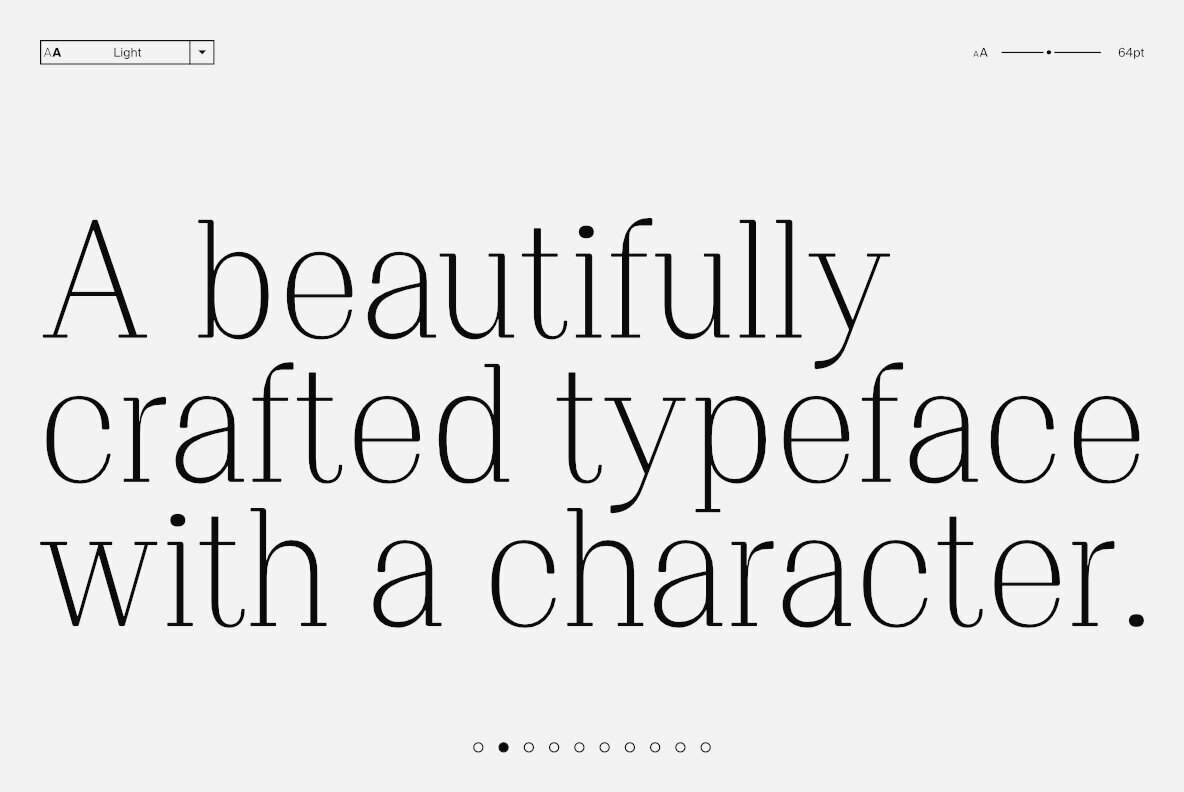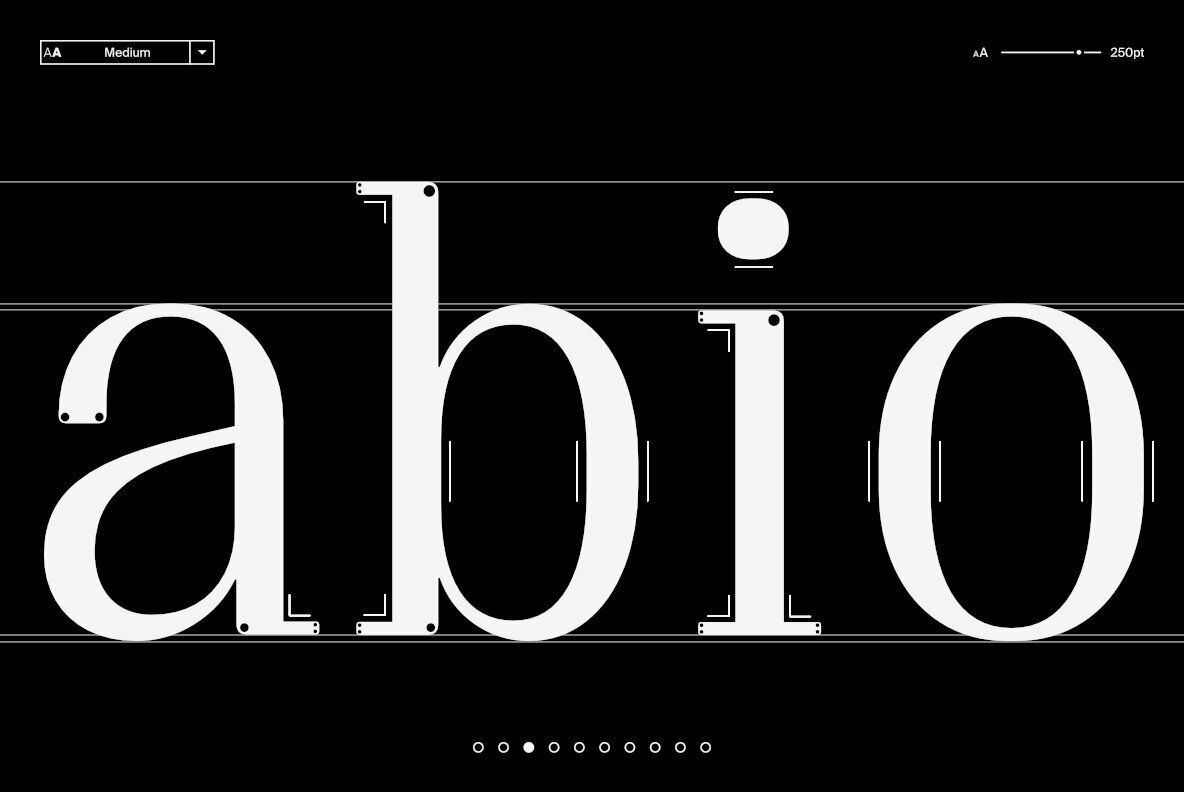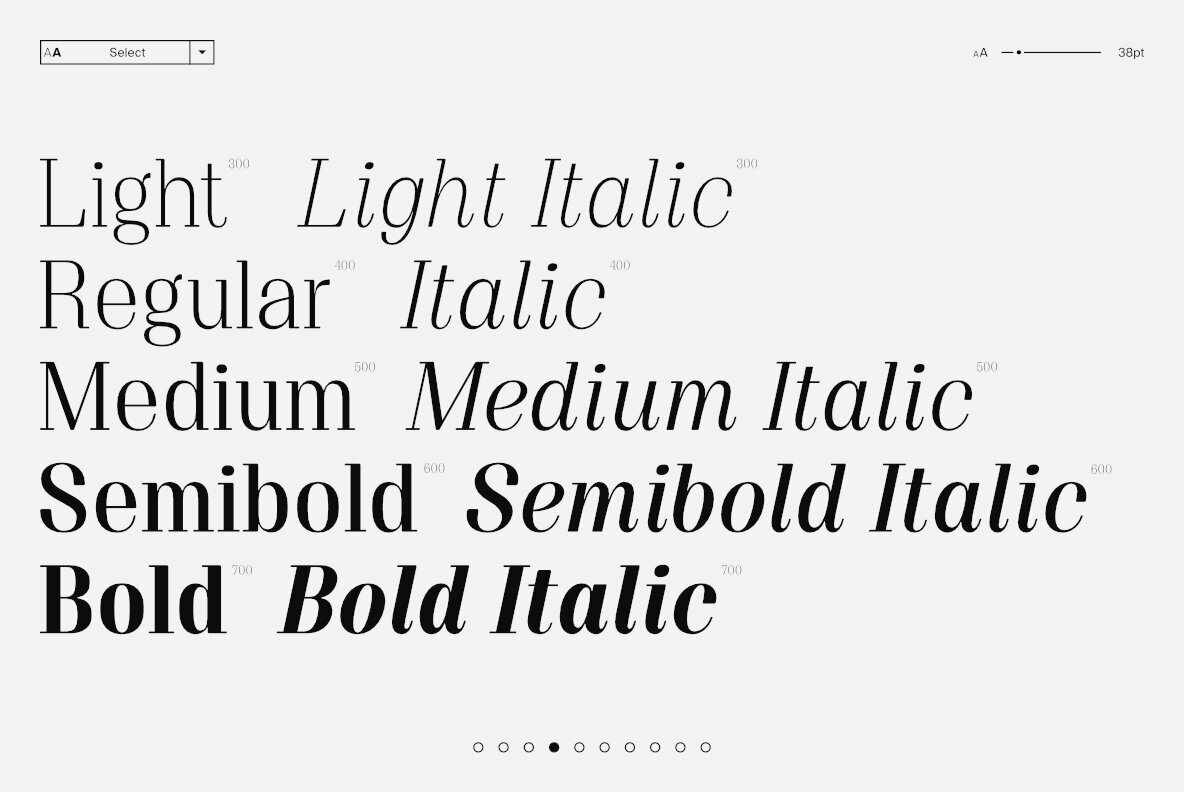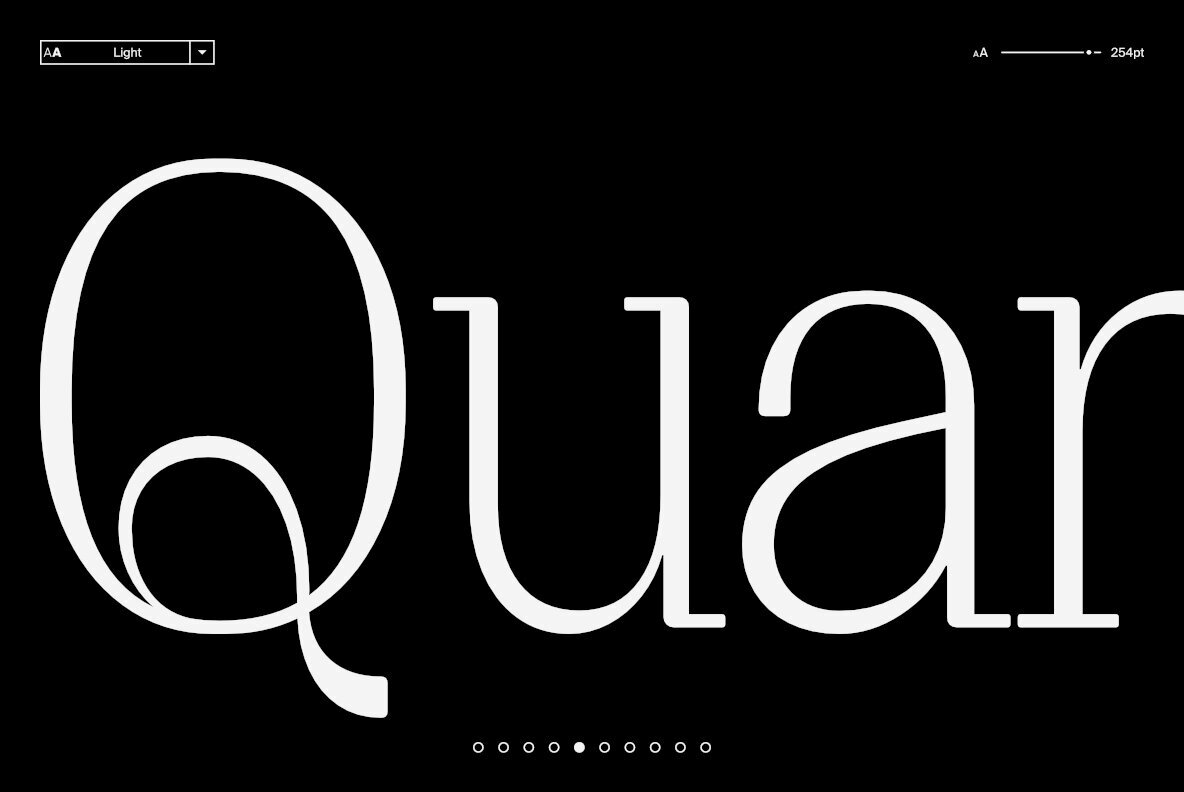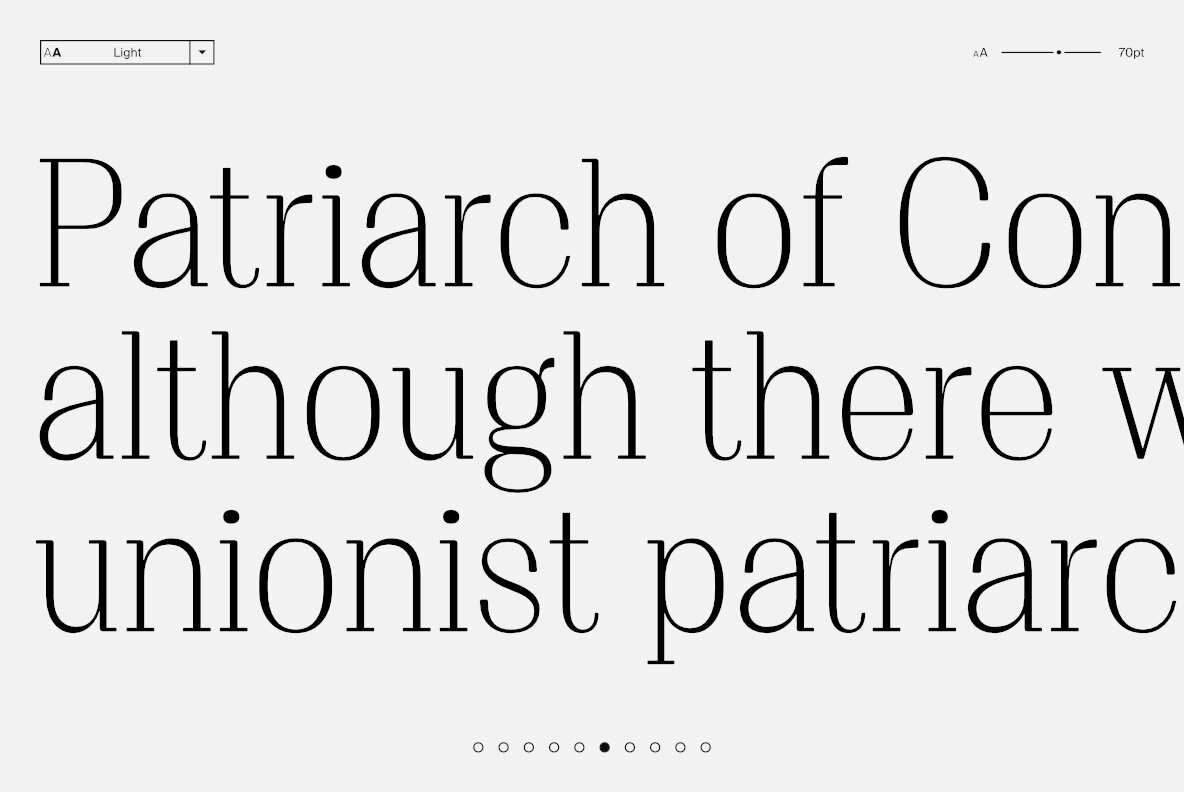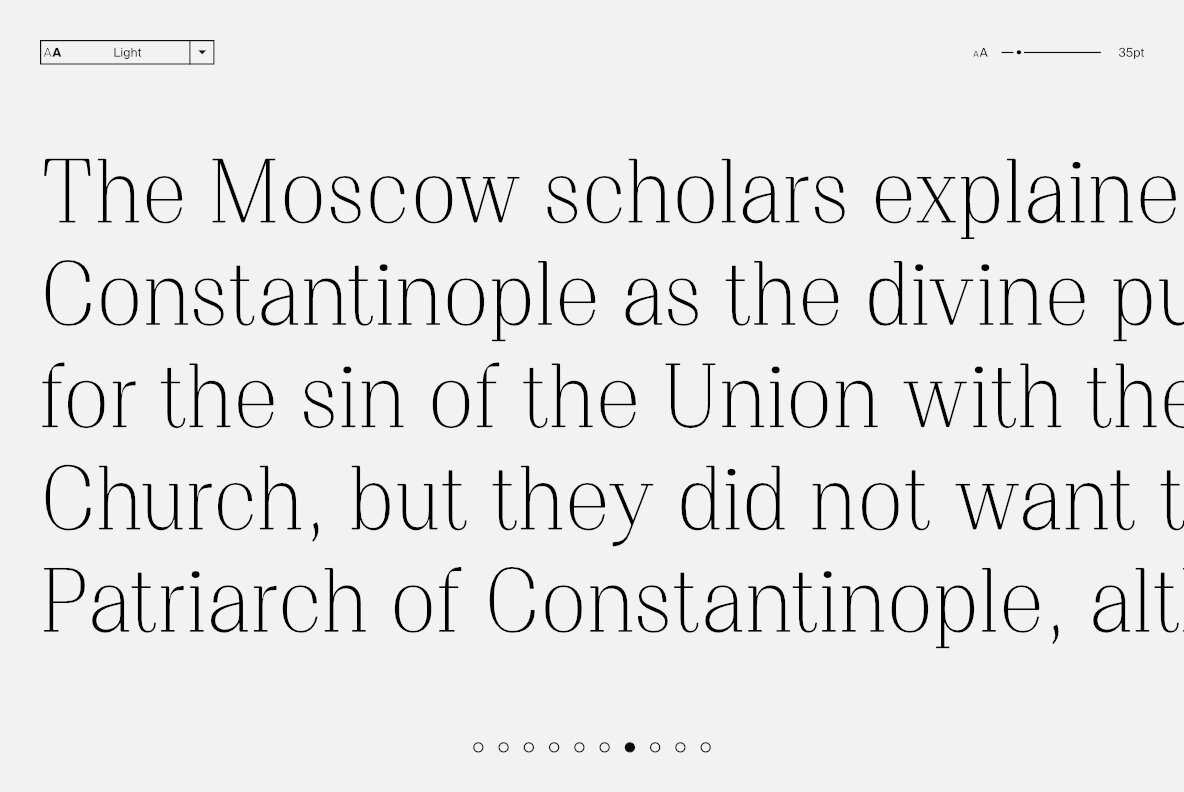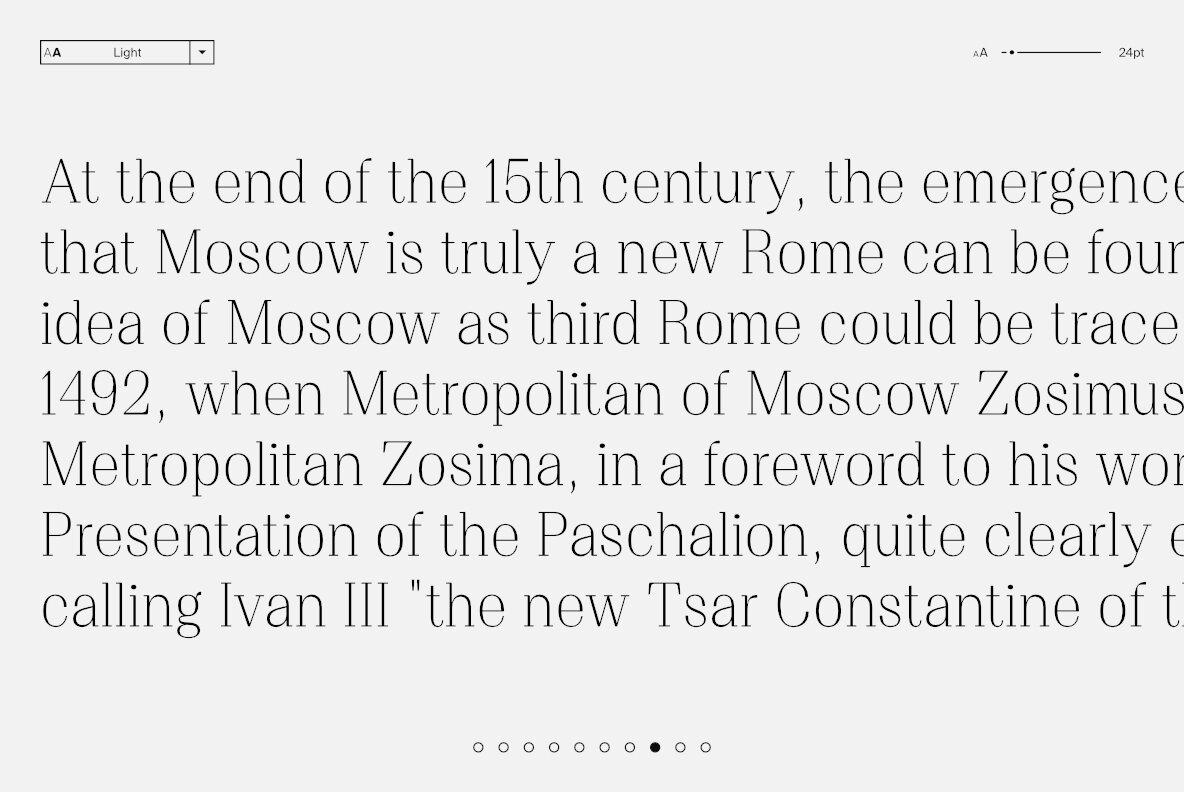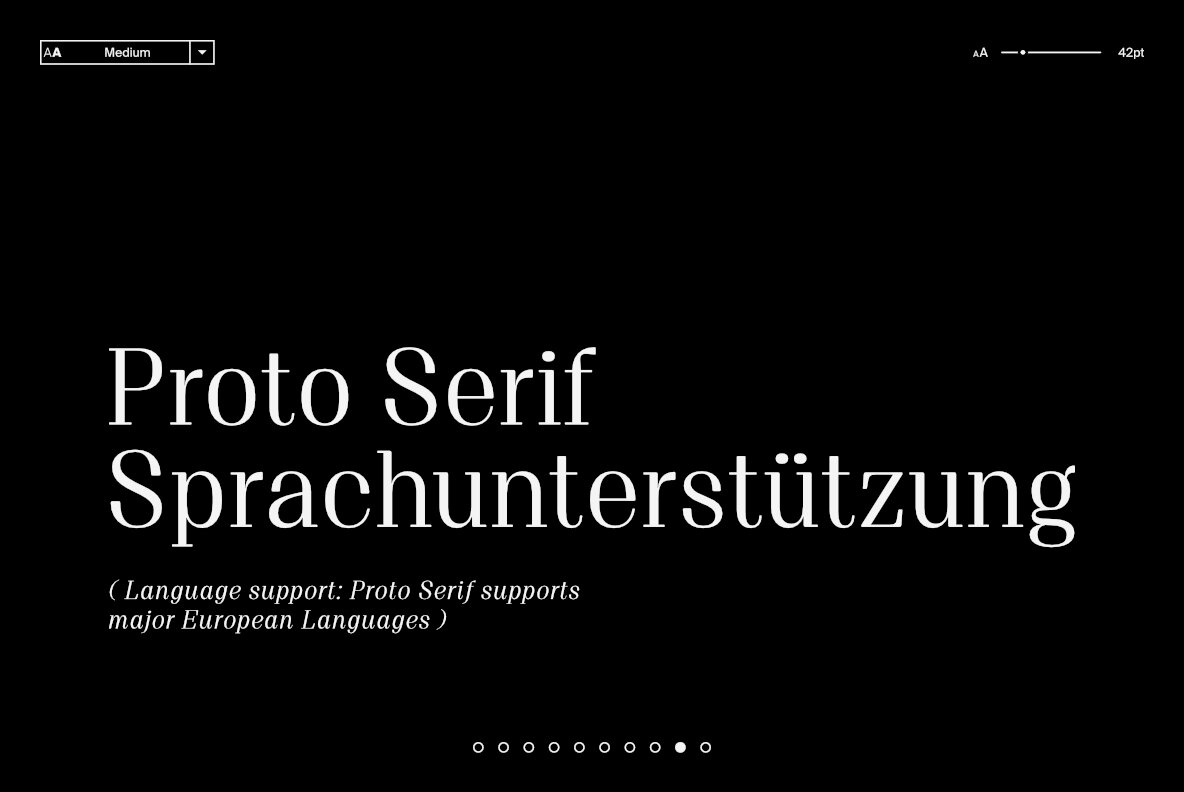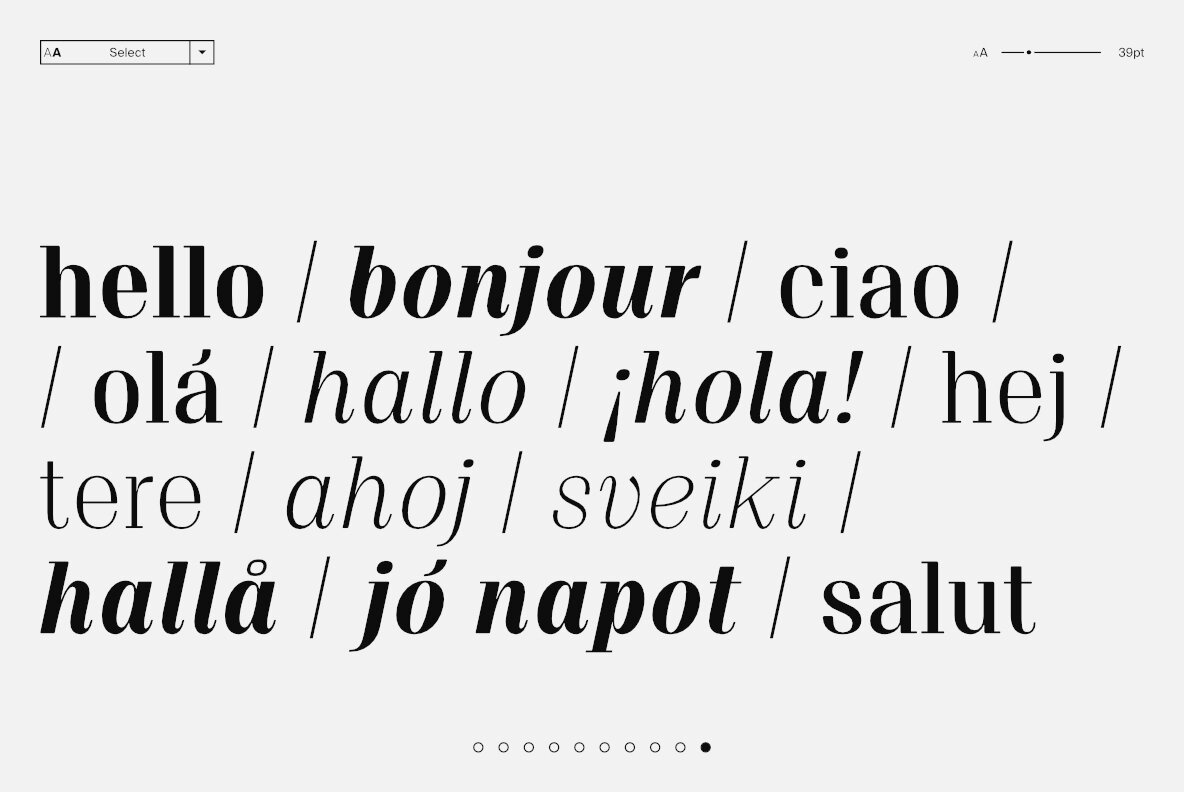
Proto Serif Font
Proto Serif, designed by Aleksandrs Golubovs, is a high contrast serif typeface distinguished by its economical proportions and pronounced vertical stress. It features thin serifs and distinctive terminals, ensuring a sophisticated appearance suitable for headlines. Its relatively large x-height enhances readability without compromising its elegant aesthetic.Proto Serif: High Contrast Typeface with Economical Proportions